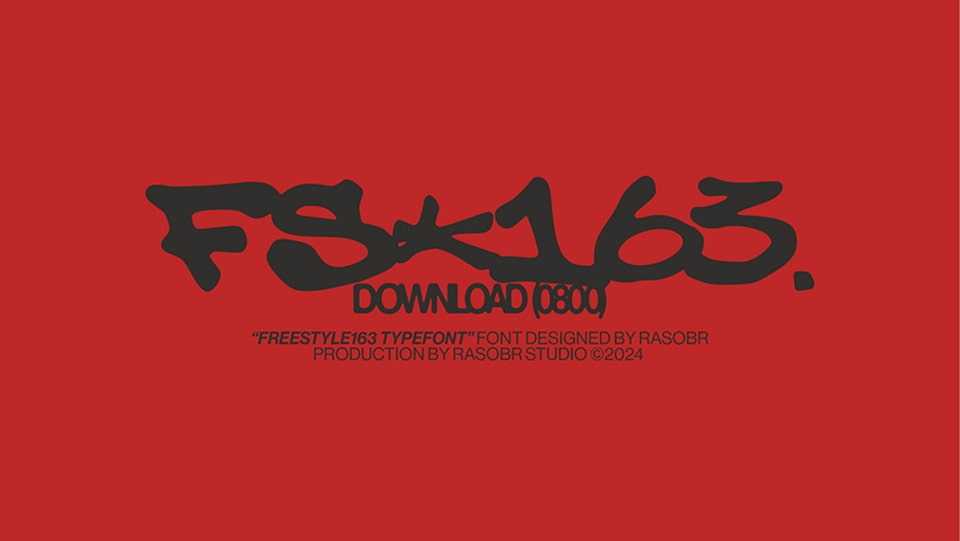
Freestyle 163 Font › Fontesk – Download Grátis
Download Freestyle 163 font, a visual manifesto inspired by street culture and urban art and created to highlight our cultural and creative root.